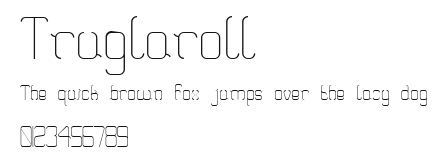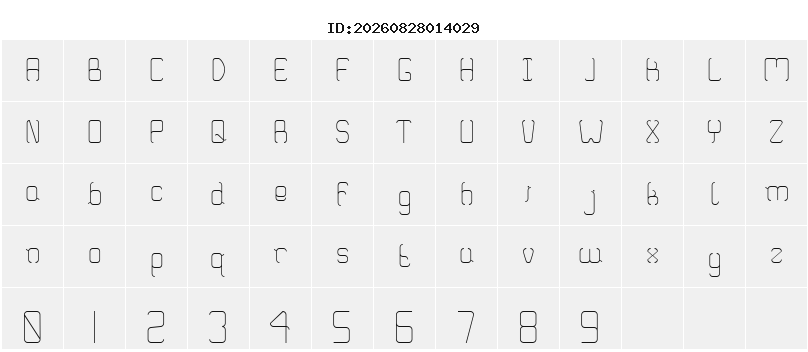
About Truglaroll.ttf
Truglaroll.ttf is a modern, elegant sans-serif font designed for ultimate readability and visual harmony. Perfect for branding, headlines, web design, and print materials.